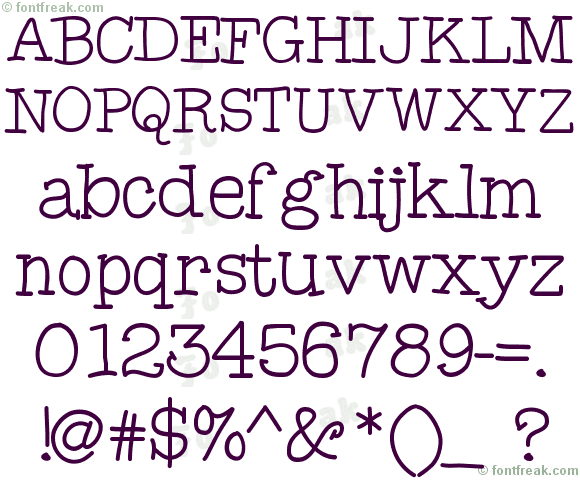
MixComic
MixComic by Mikko Sumulong is a delightful display font that captures the essence of contemporary comic book aesthetics. This typeface boasts a playful and approachable design, characterized by its rounded strokes and uniform weight, which lend it a friendly, whimsical quality. The lack of sharp contrasts in the strokes ensures a smooth reading experience, while the slightly condensed letterforms create a compact yet engaging appearance. The spacing is well-balanced, making it suitable for various applications without overwhelming the viewer.
MixComic is an excellent choice for a range of creative projects. Its vibrant and lively style makes it perfect for children's book covers, where it can evoke a sense of fun and adventure. Additionally, it shines in graphic novels and comic strips, where its expressive nature enhances storytelling. Restaurant menus can benefit from its inviting look, drawing attention to special dishes and creating a warm atmosphere. This font is also ideal for promotional materials or social media graphics, appealing to a younger audience and helping brands stand out in a crowded marketplace.
What sets MixComic apart is its ability to blend versatility with charm. It effortlessly adapts to a variety of contexts while maintaining its distinctive character. Whether you're crafting engaging visuals for a kid-friendly brand or looking to add a touch of creativity to your layouts, MixComic font free download offers an exciting option that is sure to capture attention and inspire creativity.